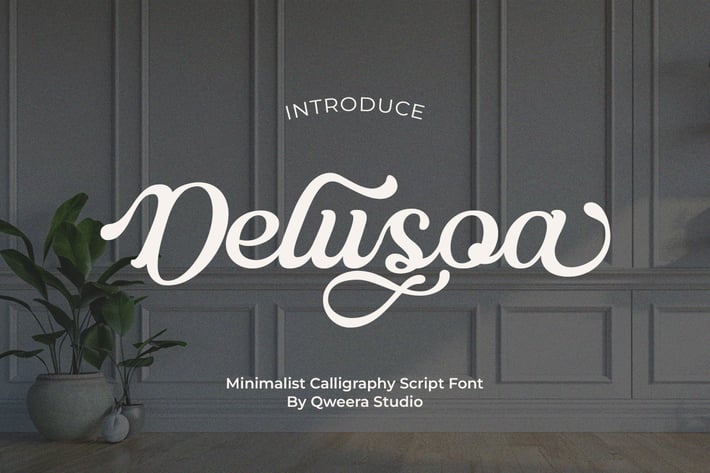
Delusoa - Modern Script Logo Font
Delusoa – Minimalist Calligraphy Script Font for Elegant Branding
Delusoa is a refined minimalist calligraphy font that blends modern simplicity with handcrafted elegance. Featuring graceful alternates and artistic swash characters, this typeface elevates your branding, packaging, and editorial designs with its sophisticated yet understated charm.
Where Contemporary Minimalism Meets Artistic Flair
With its clean strokes and delicate flourishes, Delusoa offers the perfect balance of professionalism and creativity. The included alternates and swashes allow for endless customization, making each design uniquely yours while maintaining a cohesive, polished look.
Signature Features:
- Modern Calligraphy Style - Clean, elegant script perfect for premium branding
- Artistic Swash Characters - 20+ decorative flourishes for emphasis
- Stylish Alternates - Multiple character variations for unique combinations
- Versatile Application - Ideal from luxury logos to minimalist packaging
- Multilingual Support - Comprehensive Latin character set
- Sophisticated brand identities
- Feminine product packaging
- Elegant wedding stationery
- Minimalist poster designs
- Luxury beauty branding
Elevate Your Designs with Delusoa's Refined Elegance
Delusoa is a refined minimalist calligraphy font that blends modern simplicity with handcrafted elegance. Featuring graceful alternates and artistic swash characters, this typeface elevates your branding, packaging, and editorial designs with its sophisticated yet understated charm.
Where Contemporary Minimalism Meets Artistic Flair
With its clean strokes and delicate flourishes, Delusoa offers the perfect balance of professionalism and creativity. The included alternates and swashes allow for endless customization, making each design uniquely yours while maintaining a cohesive, polished look.
Signature Features:
- Modern Calligraphy Style - Clean, elegant script perfect for premium branding
- Artistic Swash Characters - 20+ decorative flourishes for emphasis
- Stylish Alternates - Multiple character variations for unique combinations
- Versatile Application - Ideal from luxury logos to minimalist packaging
- Multilingual Support - Comprehensive Latin character set
- Sophisticated brand identities
- Feminine product packaging
- Elegant wedding stationery
- Minimalist poster designs
- Luxury beauty branding
Elevate Your Designs with Delusoa's Refined Elegance